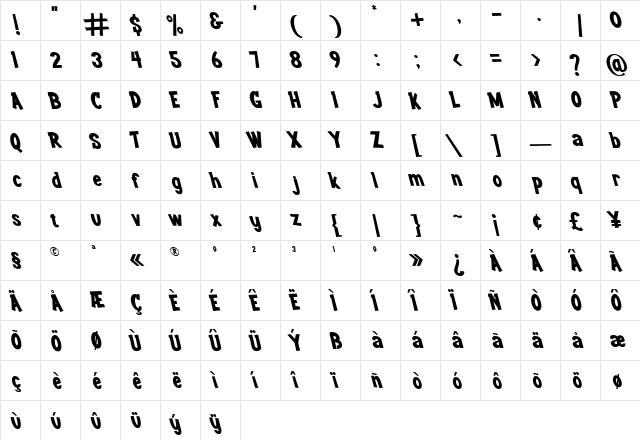
Youth wright Oblique
Design Context for Youth wright Typeface
Youth wright offers clean, dependable letterforms without strong stylistic allegiance, making it a practical choice for designers who need flexibility. Its italic angle brings a sense of urgency and motion to the letterforms.
Pro Tip: Try Youth wright for annotation and caption copy alongside an upright companion — the contrast in angle creates a dynamic but ordered typographic system.